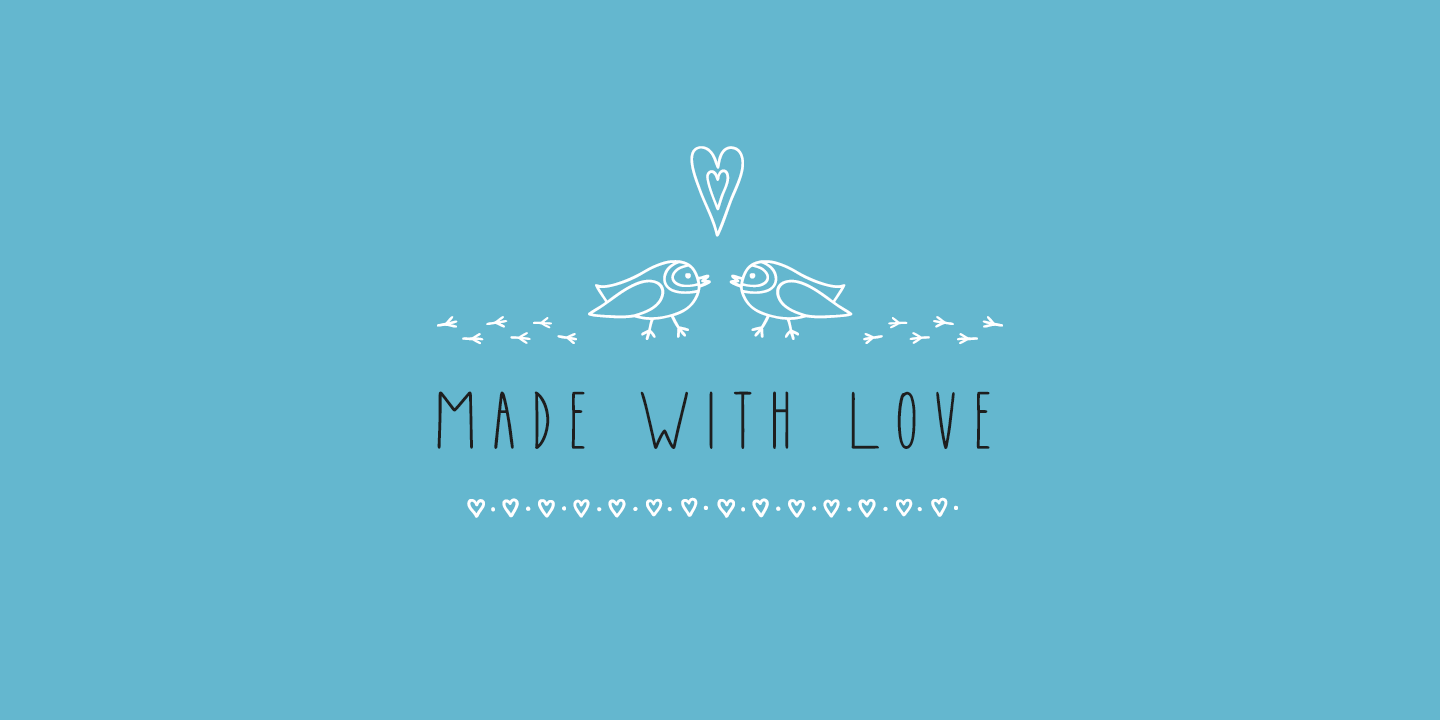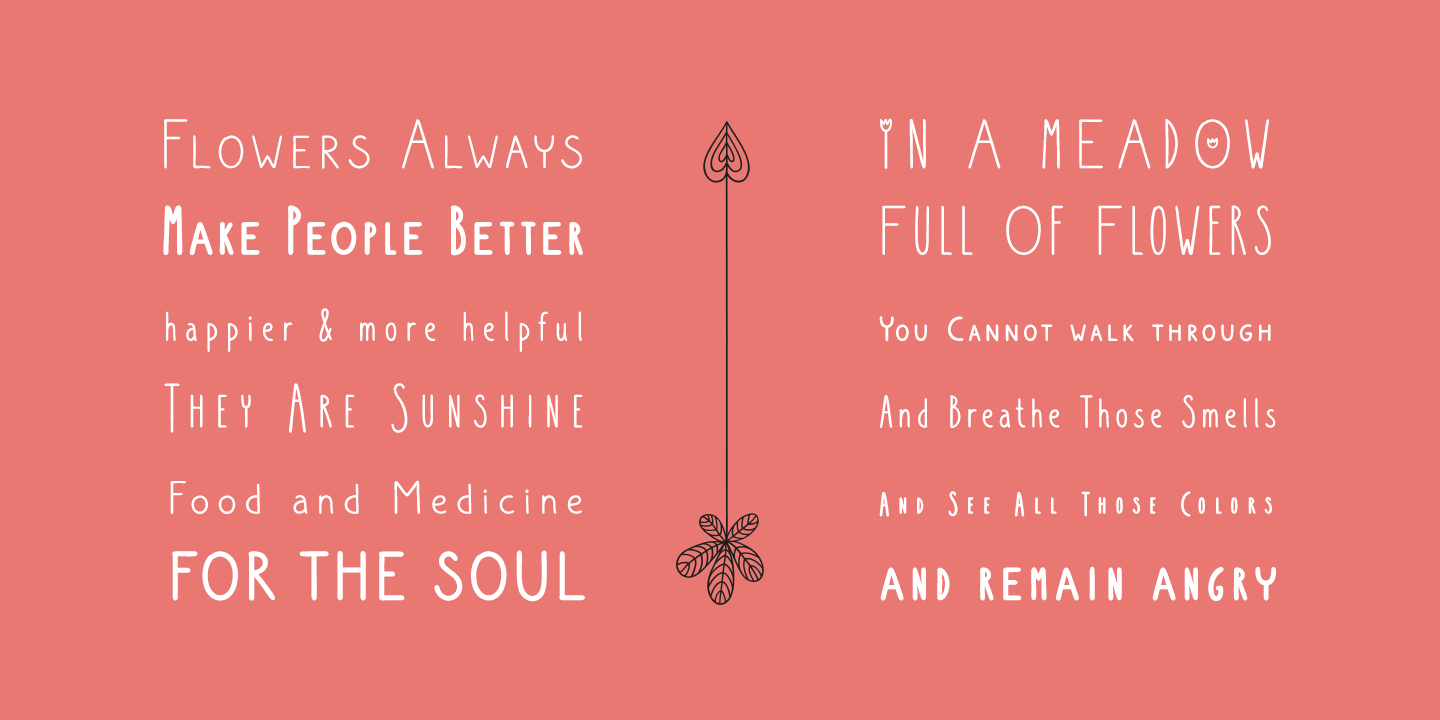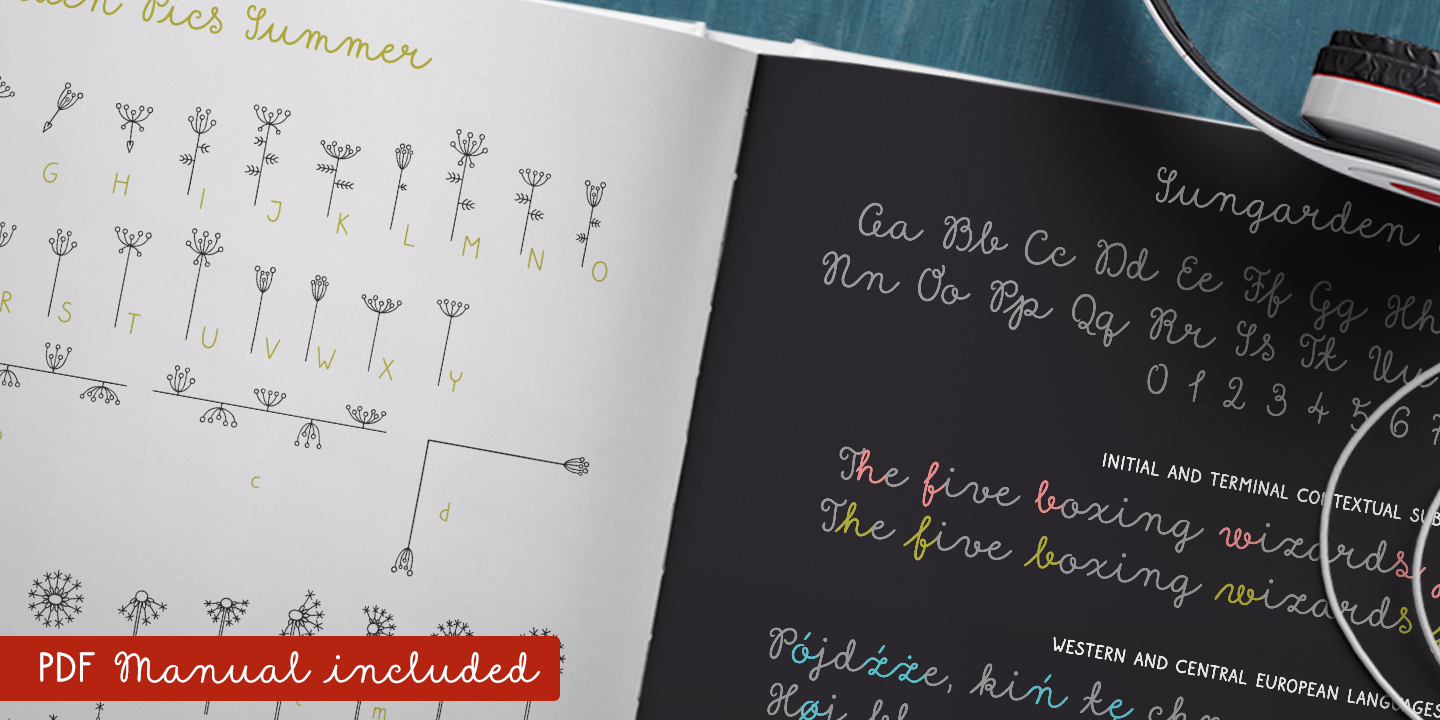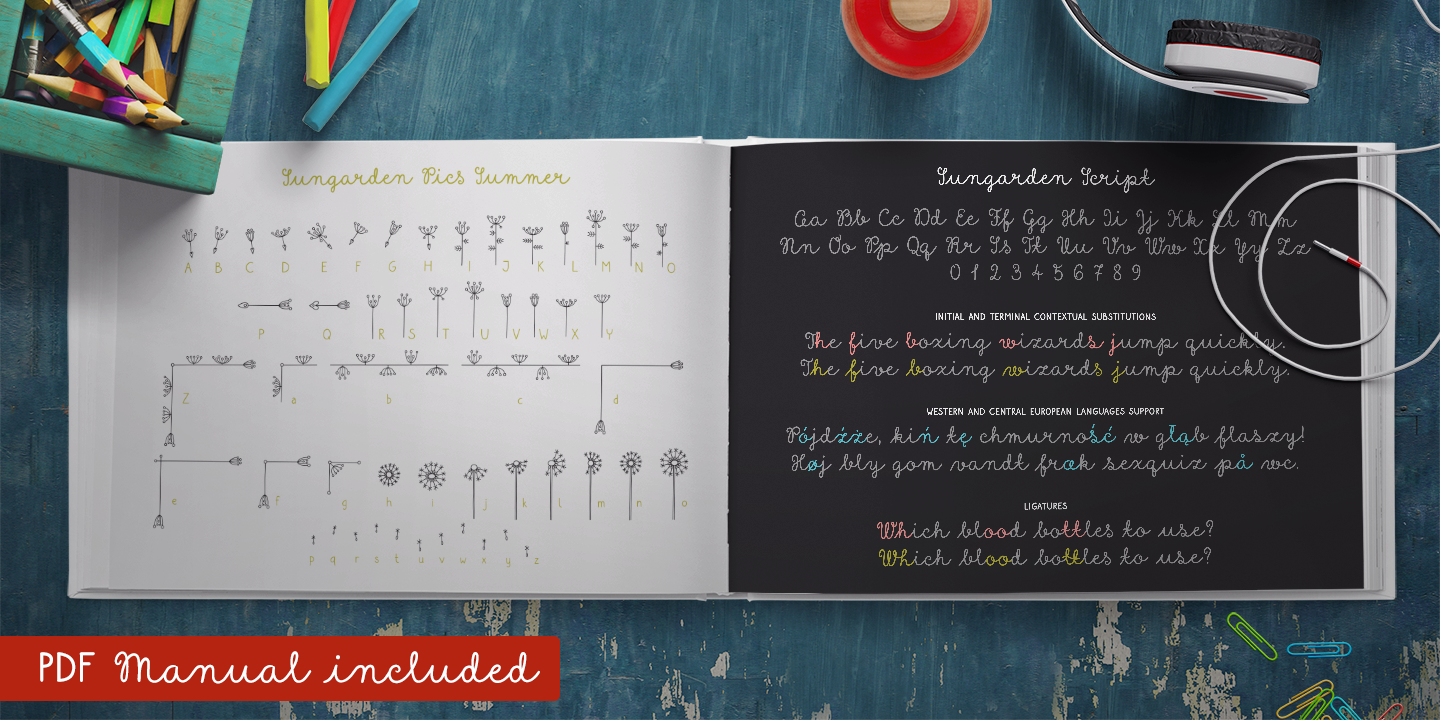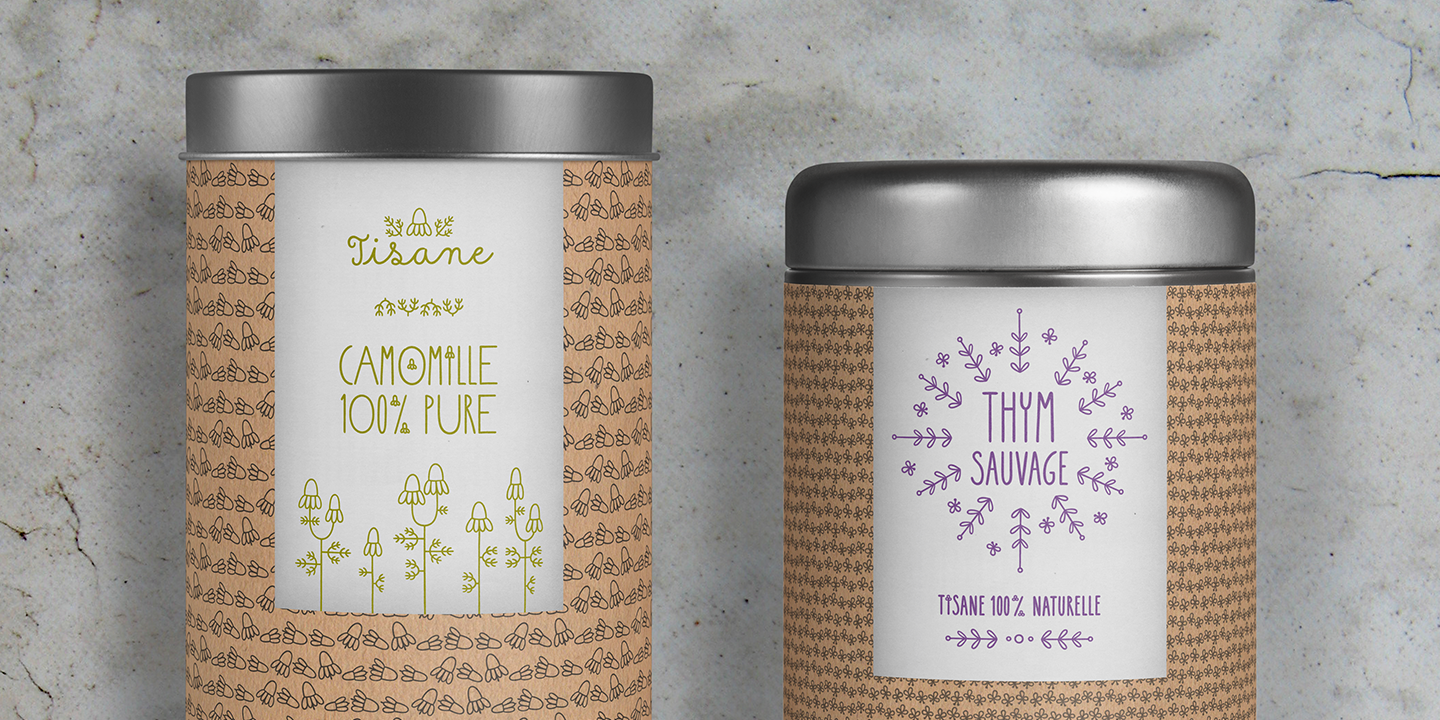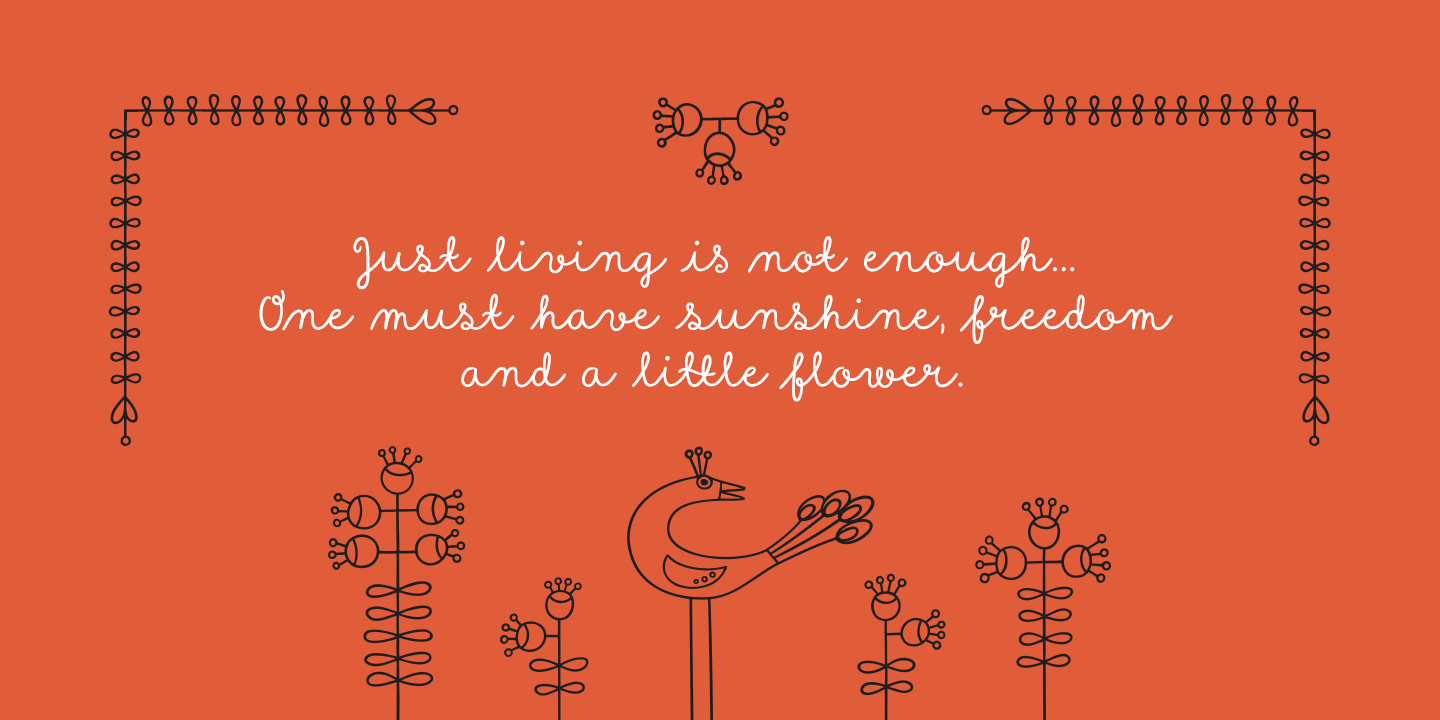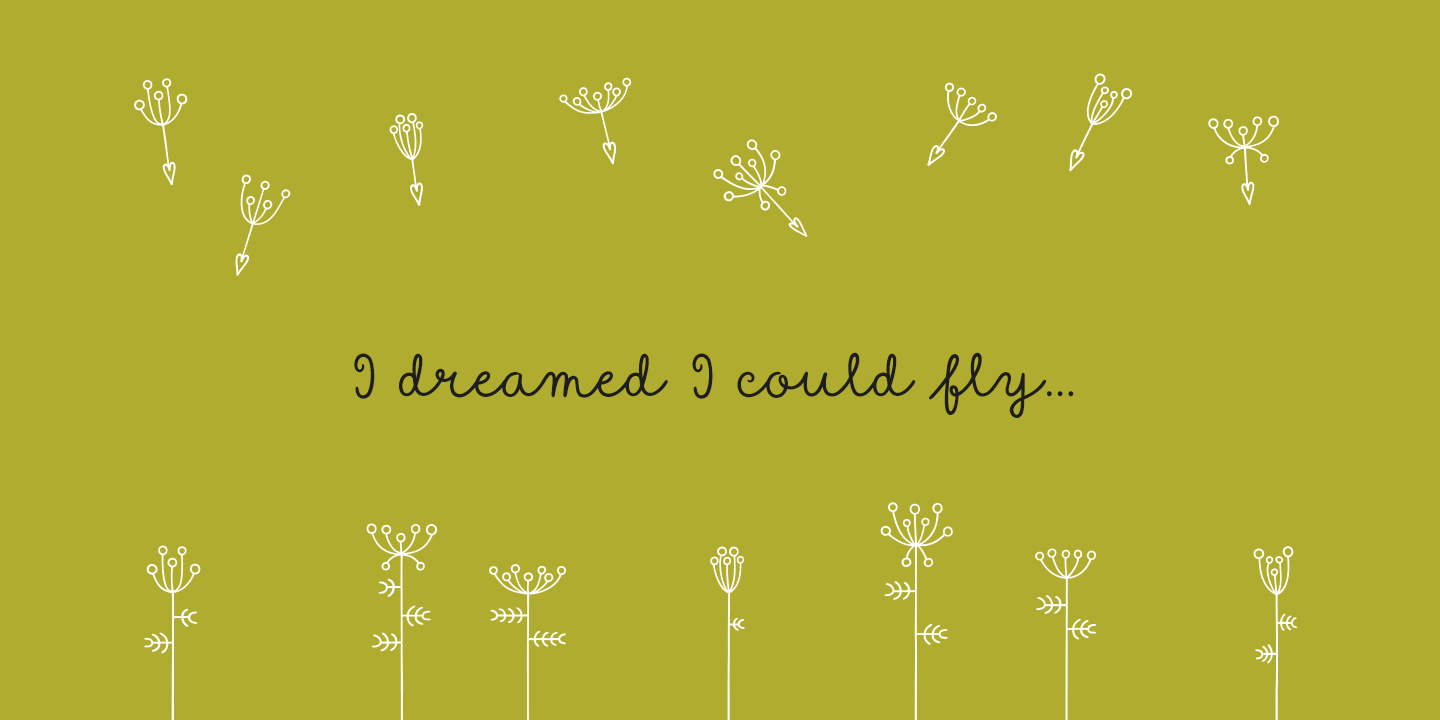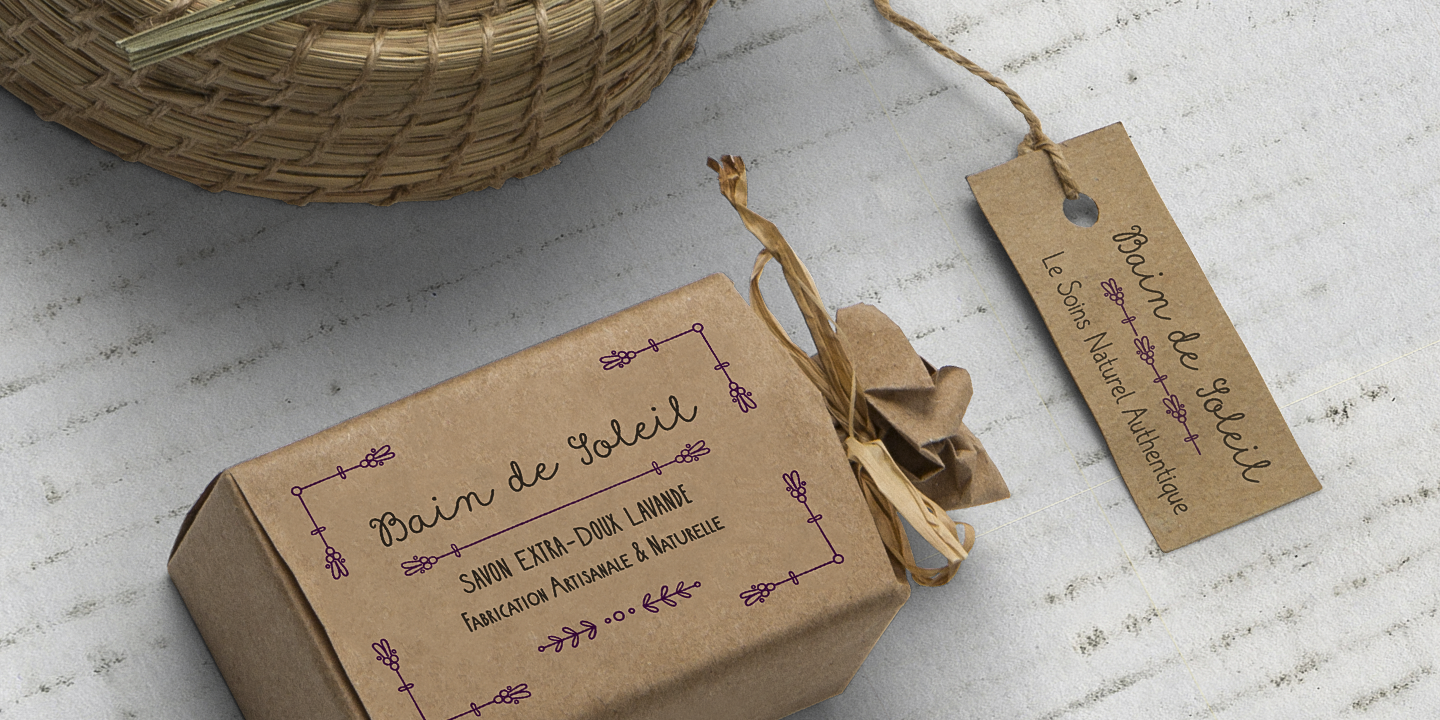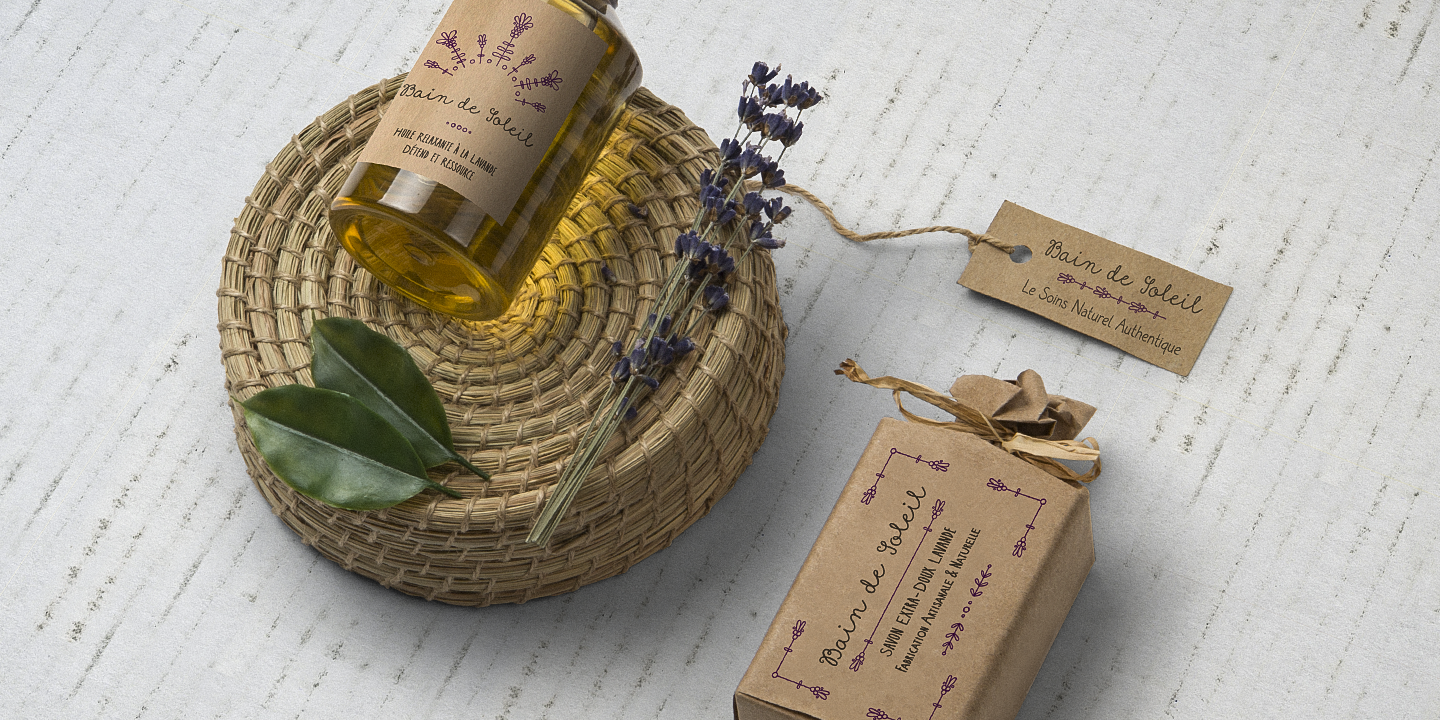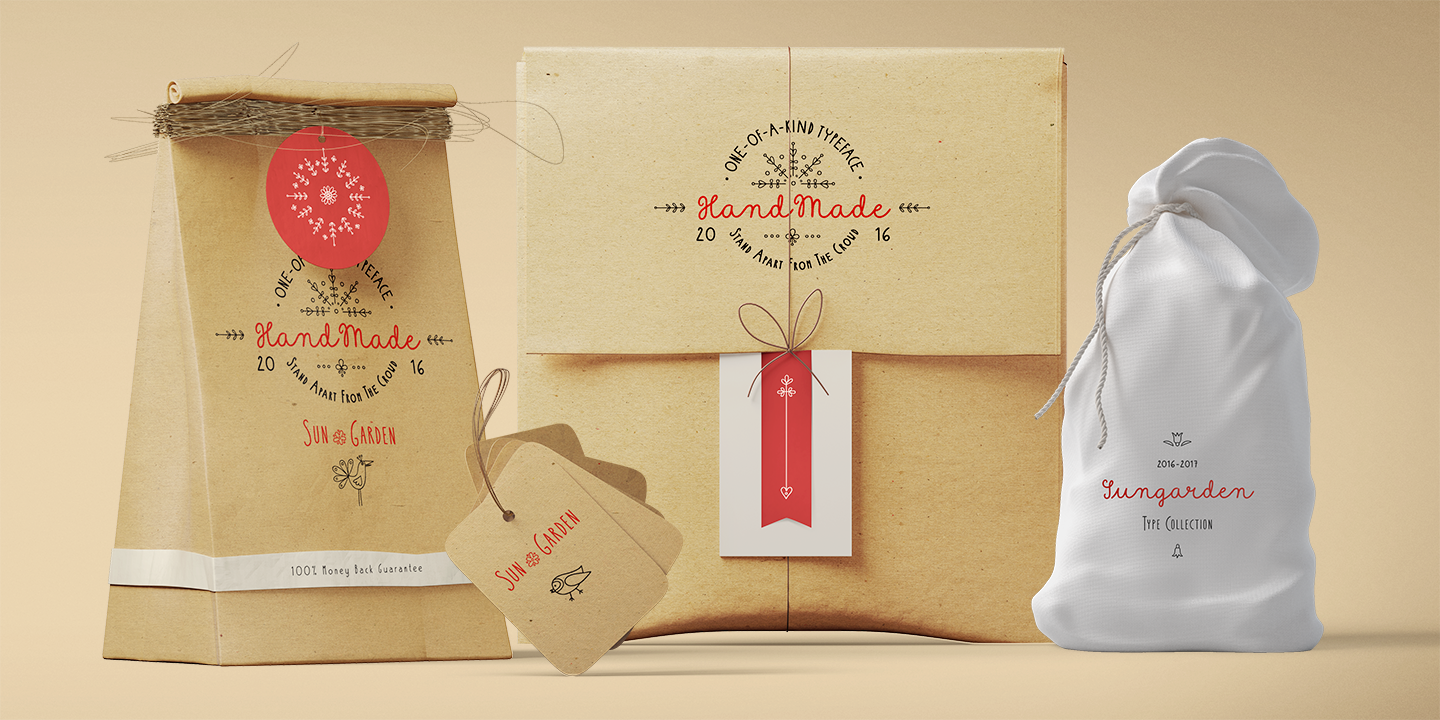
Sungarden Family (21 fonts)
From Juraj Chrastina Type
Sungarden is a bouquet of about 400 handmade pics and floral ornaments, created to compliment my collection of 12 playful sans serifs including a cute script. Sungarden Script is packed with ligatures and automatic initial and terminal forms accessed through contextual alternates. All fonts have an extended character set to support Western and Central European languages.
The Sungarden family is well-suited for nature, cosmetics, organic food, handmade products, wedding and greeting cards, invitations, labels, packaging, menus, books or apparel.
OpenType features: Ligatures, Alternates, Contextual Alternates